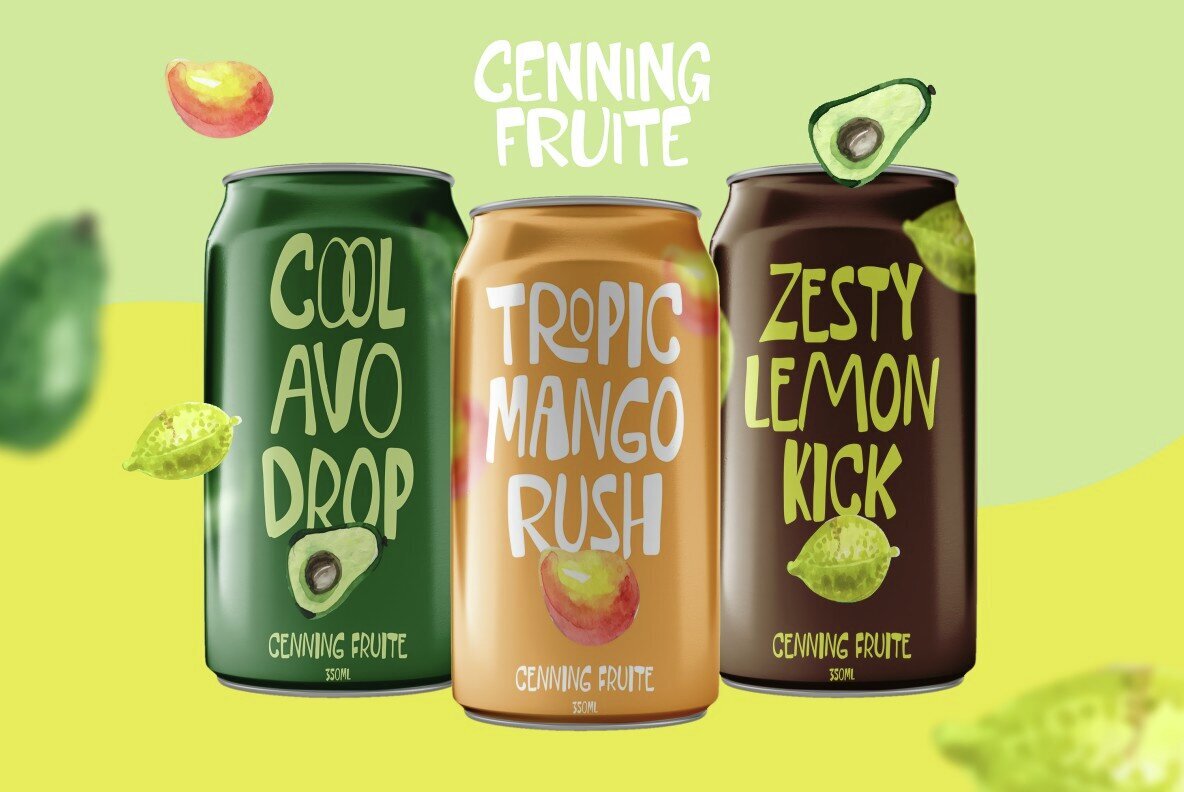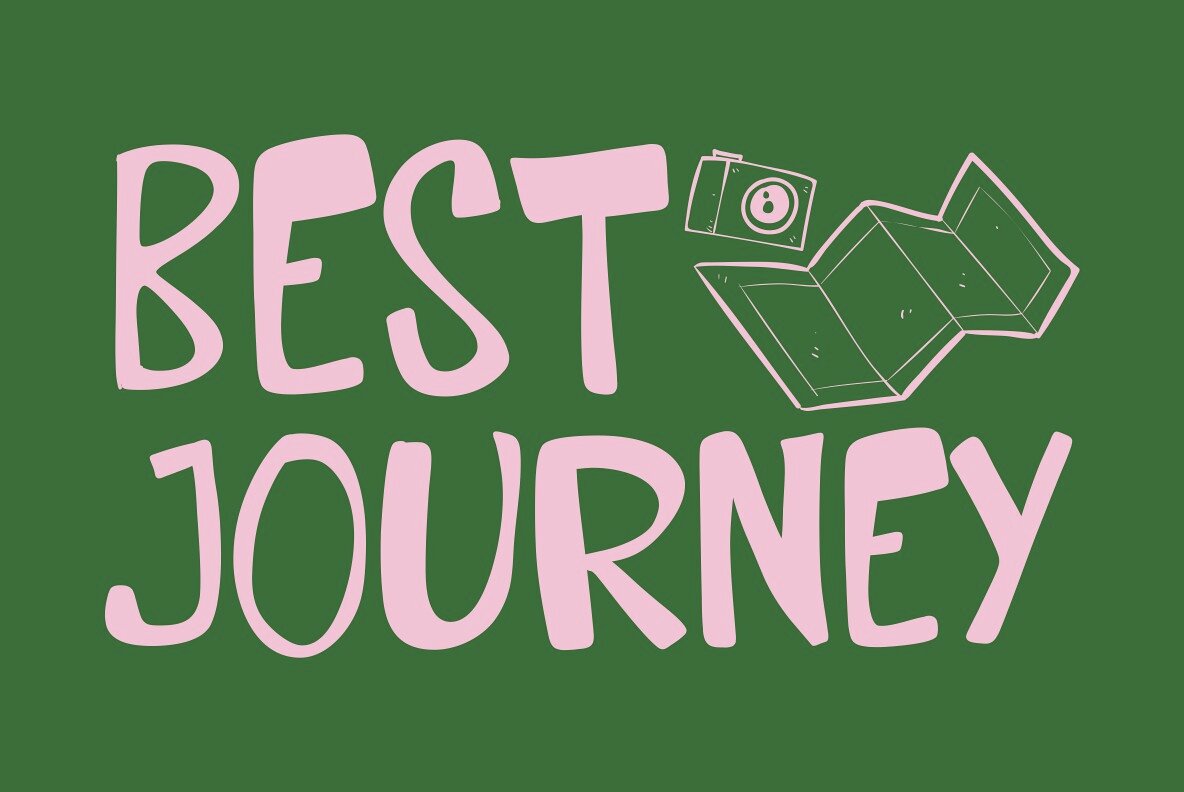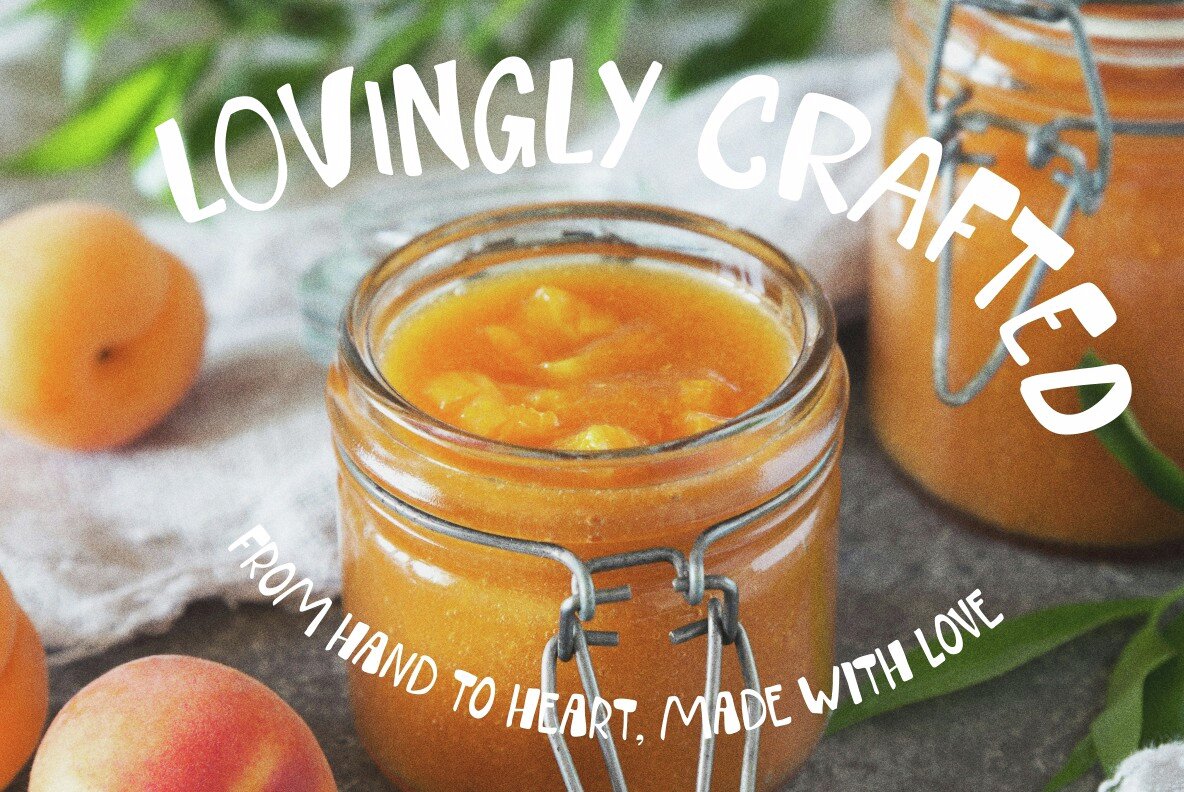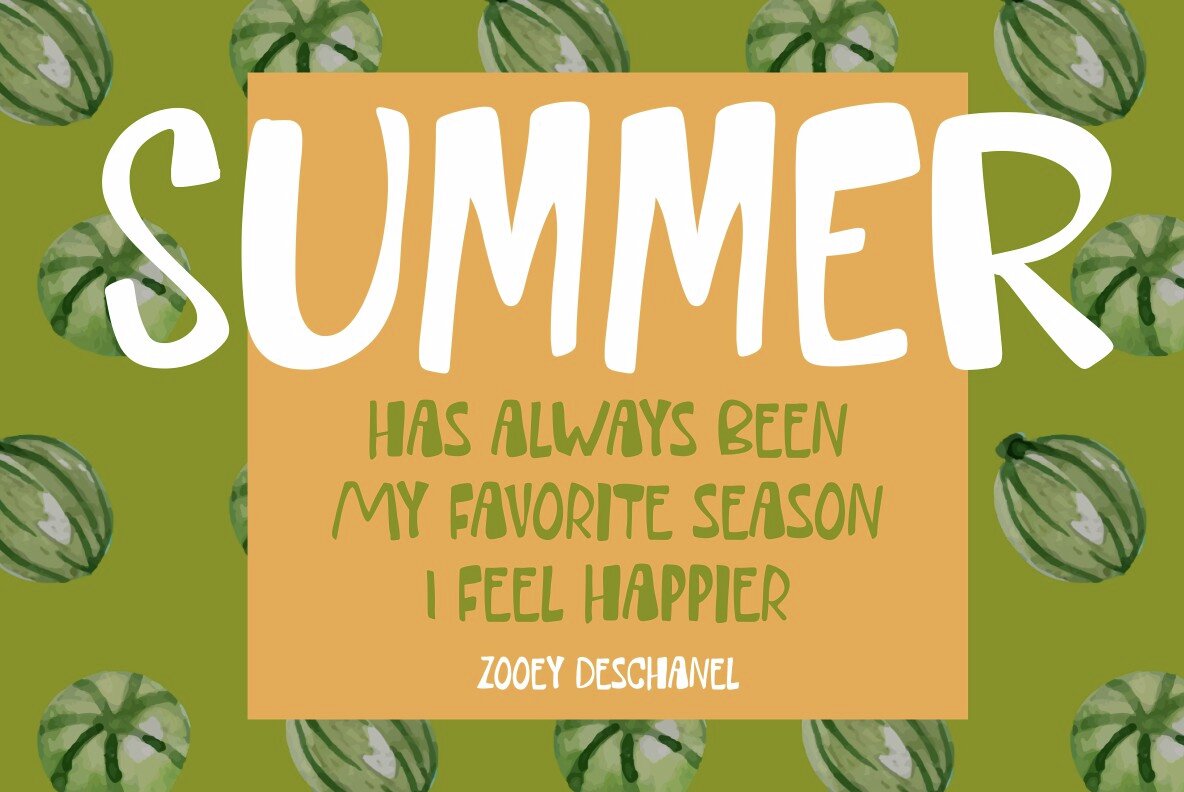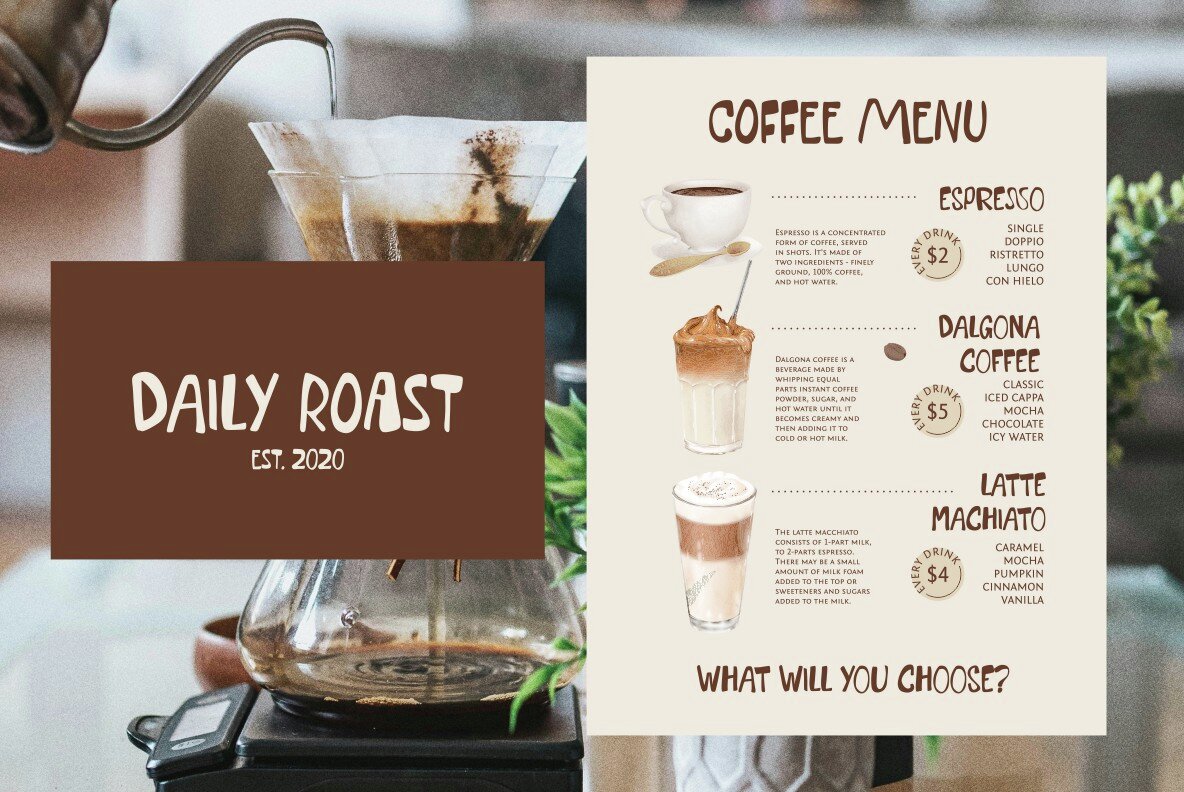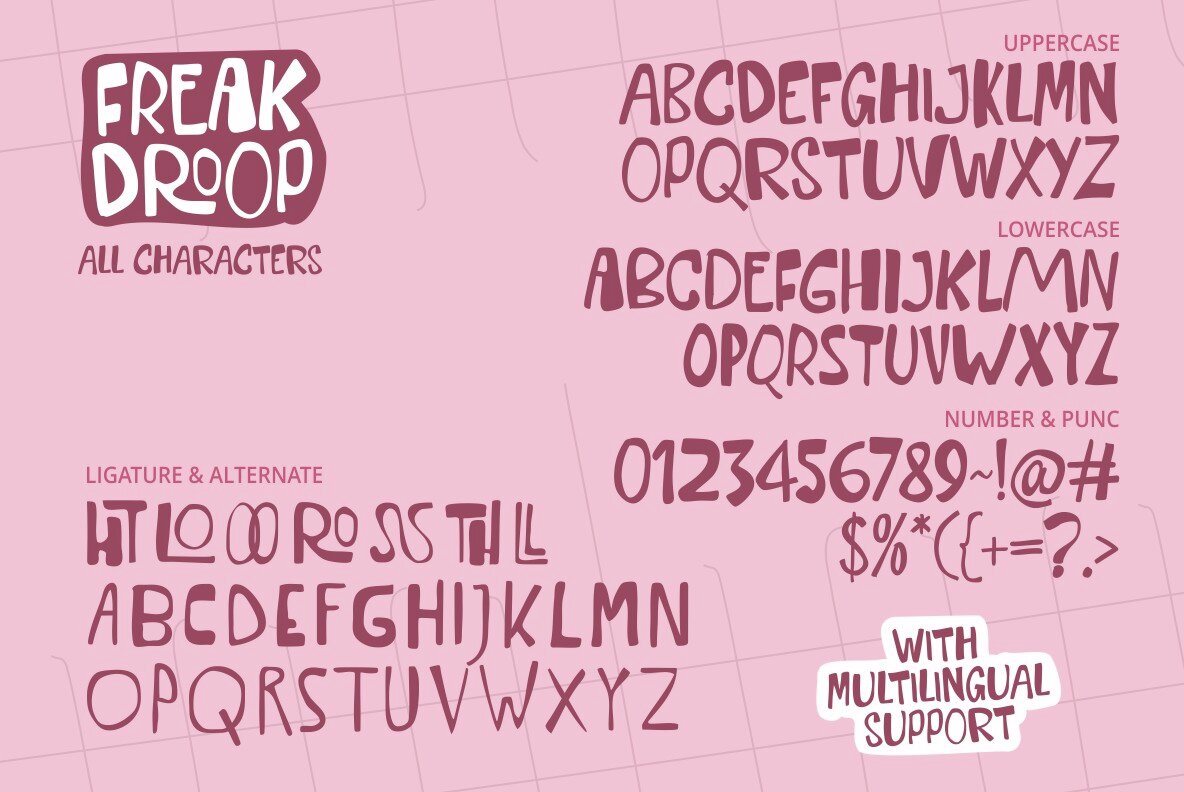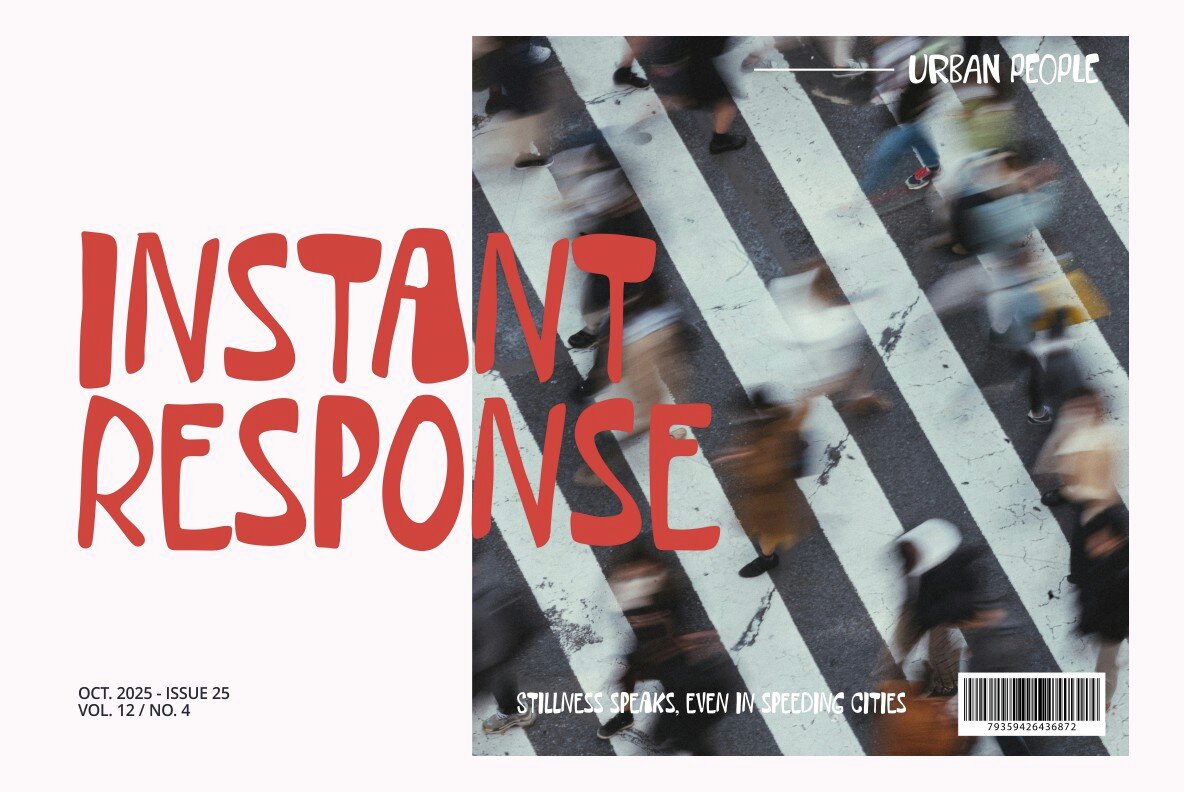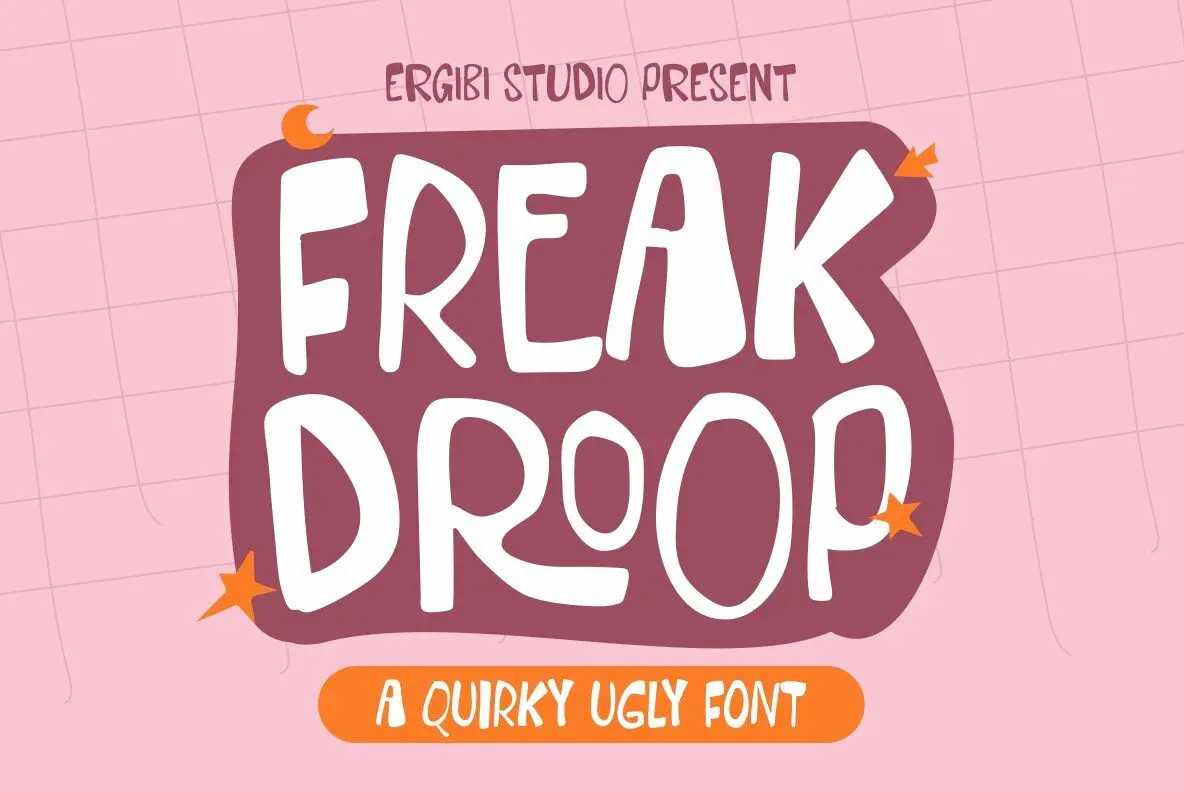
Freak Droop Font
Freak Droop
Add a unique twist to your design projects with Freak Droop, a distinctively quirky and handwritten font. It's ideal for those seeking a bold and expressive touch in logotypes, watermarks, posters, branding materials, product packaging, and more. Designed to bring an intentionally 'ugly' charm, this font adds a raw and irregular stroke to every letter, infusing your work with a sense of chaos and personality. Explore the character previews and let Freak Droop ignite your creative spark. Embrace the wild side of design.Freak Droop